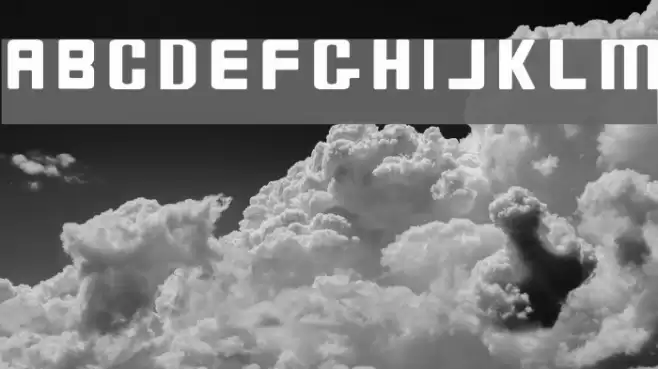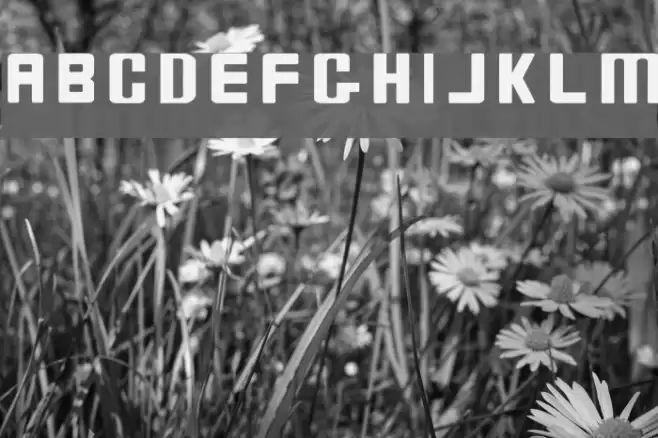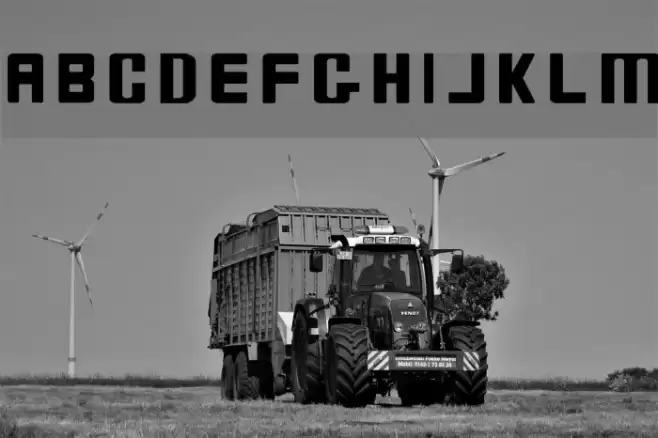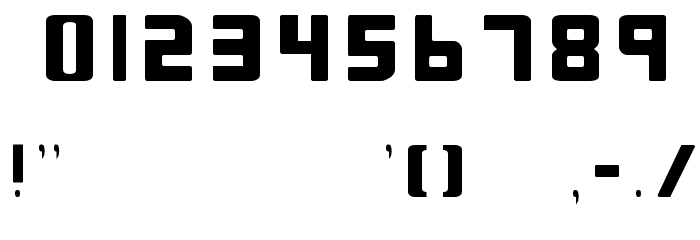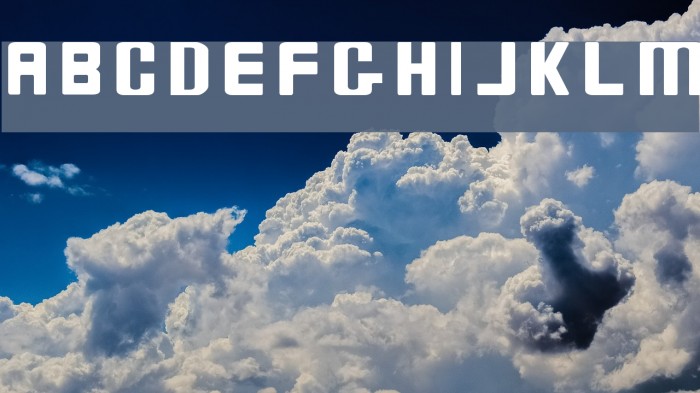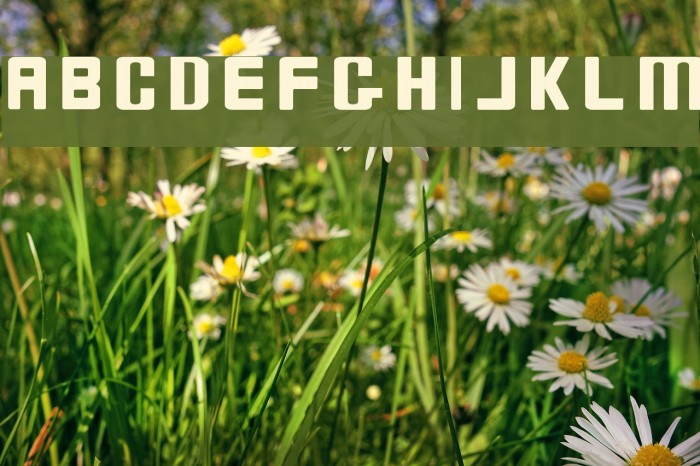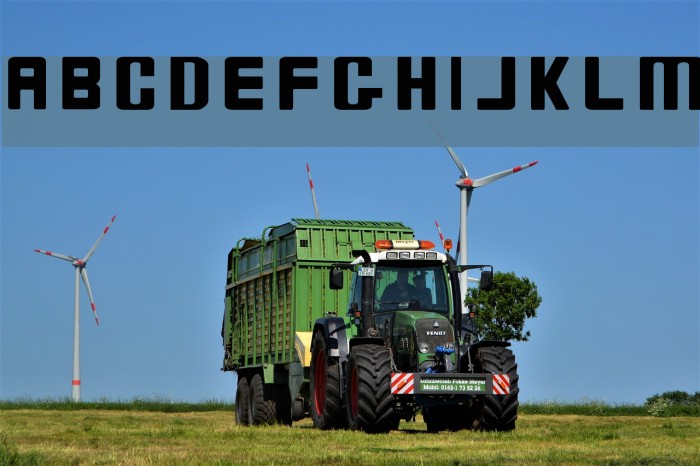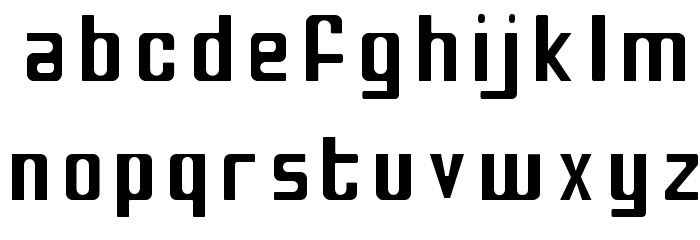
Bio-disc Thin Font
Bio-disc Thin Description
This font features a modern, geometric design with a distinct blocky appearance. The characters are uniform in width, giving it a monospaced feel, although it is not strictly monospaced. The uppercase letters are bold and assertive, with a slight rounded edge that softens the overall look. Lowercase letters maintain the same geometric style, ensuring consistency across the typeface. Numbers are clear and easy to read, matching the boldness of the uppercase letters. Special characters are designed to complement the overall aesthetic, maintaining the same weight and style. The font's clean lines and structured form make it suitable for digital and print media, offering versatility in various design contexts.
A modern, geometric font with a bold, blocky appearance and consistent character width from Futuristic fonts.
- Proposed Projects: Ideal for technology branding, digital interfaces, modern posters, and video game design.
- Use Case: Headlines, Logos, Digital interfaces